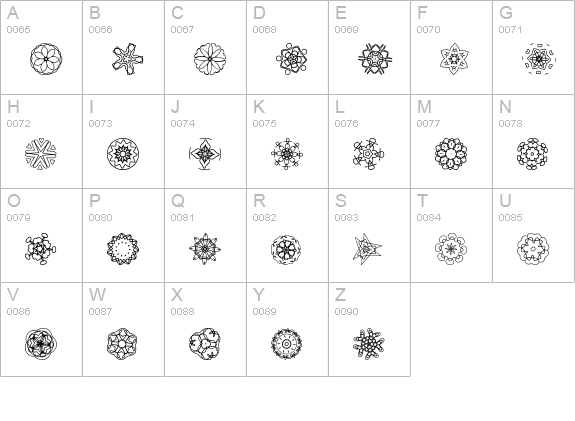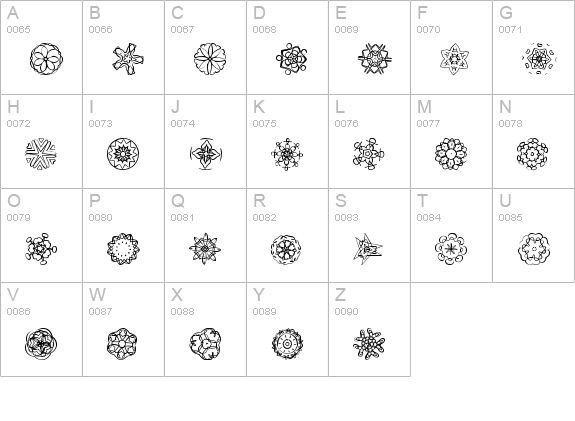
JI Kaleidoscope Bats 5 Font Details
JI Kaleidoscope Bats 5 font is a mesmerizing and enchanting typeface that will add a touch of magic to your designs. With its intricate and ornate patterns, this font creates a kaleidoscopic effect that is truly captivating. The JI Kaleidoscope Bats 5 font is perfect for creating eye-catching headlines, logos, and decorative elements that demand attention. Its unique and intricate design makes it stand out from the crowd, giving your designs a distinct and memorable look. What makes this font even more incredible is that it is freely available to download at FontsMarket.com. Yes, you heard it right - you can get your hands on this stunning font without spending a dime. Whether you are a professional designer or just someone who loves experimenting with typography, this free font is a must-have in your collection. The JI Kaleidoscope Bats 5 font offers a wide range of glyphs, each one carefully crafted to perfection. From delicate swirls to bold geometric shapes, this font provides endless possibilities for creating visually stunning designs. Whether you want to add a touch of elegance to a wedding invitation or create a mystical atmosphere in a fantasy novel, this font has got you covered. With its generous spacing and clear legibility, the JI Kaleidoscope Bats 5 font is versatile and easy to use. It is suitable for both print and digital projects, ensuring that your designs will look stunning in any medium. So why wait? Download the JI Kaleidoscope Bats 5 font for free at FontsMarket.com and let your creativity soar. With its mesmerizing patterns and captivating design, this font will truly make your designs stand out from the crowd.